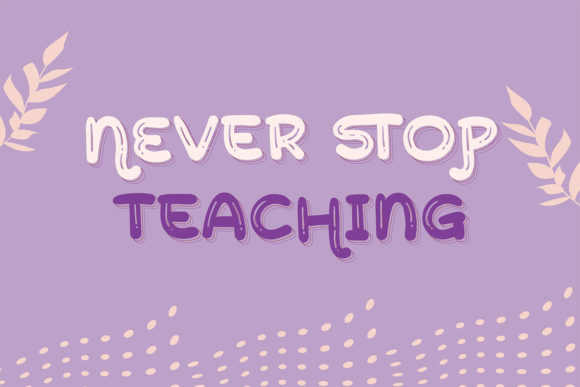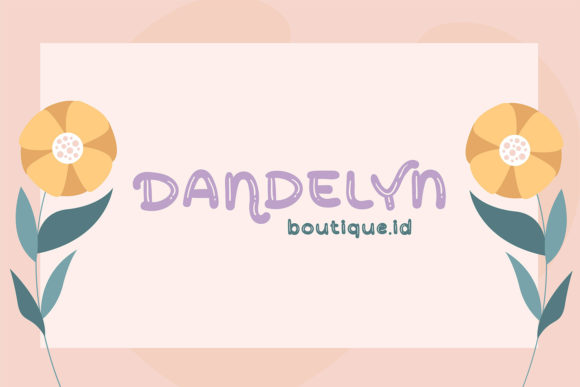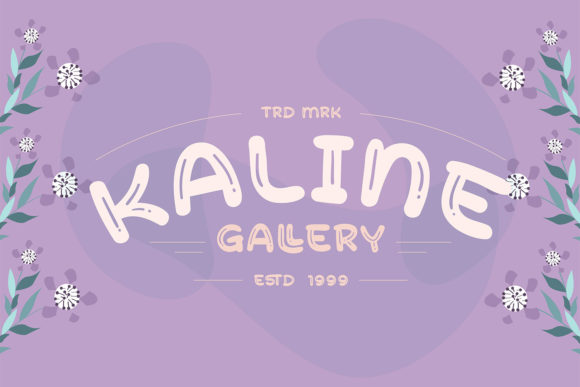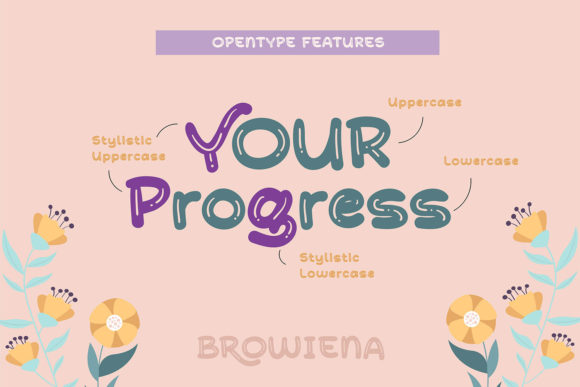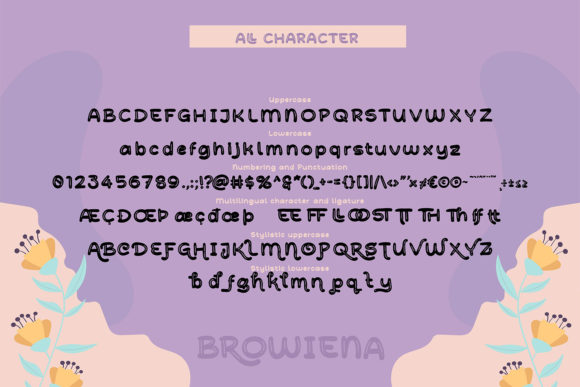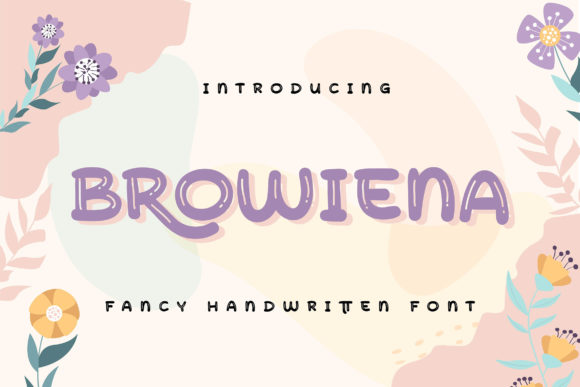
Browiena Font: Elevate Your Designs with Elegance and Sophistication
In the world of typography, a font can make or break a design. For designers and crafters looking to add a touch of elegance and sophistication to their projects, Browiena Font is an excellent choice. This stunning display font is characterized by its smooth curves, making it perfect for fashion branding, editorial designs, and any creative endeavor that demands a high level of visual appeal.
What Makes Browiena Font Stand Out?
Browiena Font is not just any ordinary font. It’s a cute, fancy, and unique display font that is sure to capture the attention of your audience. Its defining feature is its smooth, flowing curves that give it a luxurious and refined look. Whether you’re working on a fashion brand’s logo, an editorial design, or a craft project, Browiena Font is guaranteed to add a level of sophistication and elegance that will set your work apart.
Perfect for Fashion Branding and Editorial Designs
Fashion branding and editorial designs require a font that exudes style and sophistication. Browiena Font fits the bill perfectly. Its elegant curves and unique design make it an ideal choice for designers looking to create visually stunning projects that convey a sense of luxury and refinement. From fashion magazines to high-end brand logos, Browiena Font is the perfect tool to elevate your designs and make them stand out.
One of the best features of Browiena Font is that it’s PUA (Private Use Area) encoded. This means that you can access all of the glyphs and swashes with ease, giving you greater flexibility and creative control over your designs. With PUA encoding, you can easily insert special characters, ligatures, and swashes into your text, allowing you to create complex and visually appealing designs with minimal effort.
Why Choose Browiena Font?
So, why should you choose Browiena Font for your next design project? Here are just a few reasons:
- Unique and Elegant Design: Browiena Font boasts a unique and elegant design that will add a touch of sophistication to any project.
- Smooth Curves: The font’s smooth curves give it a luxurious and refined look that’s perfect for fashion branding and editorial designs.
- PUA Encoded: With PUA encoding, you can easily access all of the glyphs and swashes, making it easy to create complex and visually appealing designs.
- Versatile: Browiena Font is perfect for a wide range of design projects, from fashion branding and editorial designs to craft projects and more.
Tips for Using Browiena Font
To get the most out of Browiena Font, here are a few tips:
- Use it as a Display Font: Browiena Font is perfect for use as a display font, where its elegant curves and unique design can be showcased.
- Experiment with Swashes: With PUA encoding, you can easily access a range of swashes and glyphs. Experiment with different combinations to create unique and visually appealing designs.
- Pair it with Other Fonts: Browiena Font works well when paired with other fonts. Try pairing it with a sans-serif font for a bold and eye-catching look.
In conclusion, Browiena Font is a stunning display font that’s perfect for designers and crafters looking to add a touch of elegance and sophistication to their projects. With its smooth curves, unique design, and PUA encoding, it’s an excellent choice for fashion branding, editorial designs, and any creative endeavor that demands a high level of visual appeal. Whether you’re a seasoned designer or just starting out, Browiena Font is sure to become a valuable addition to your font library.